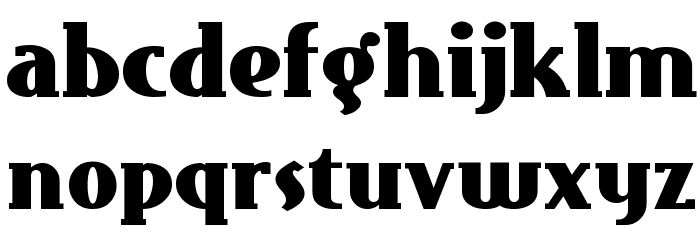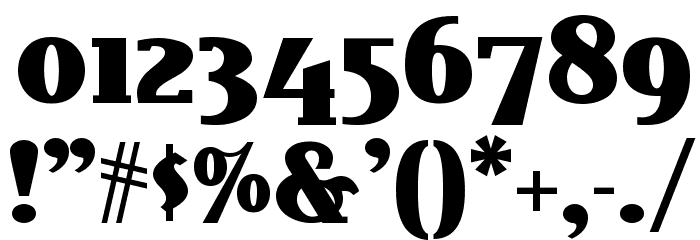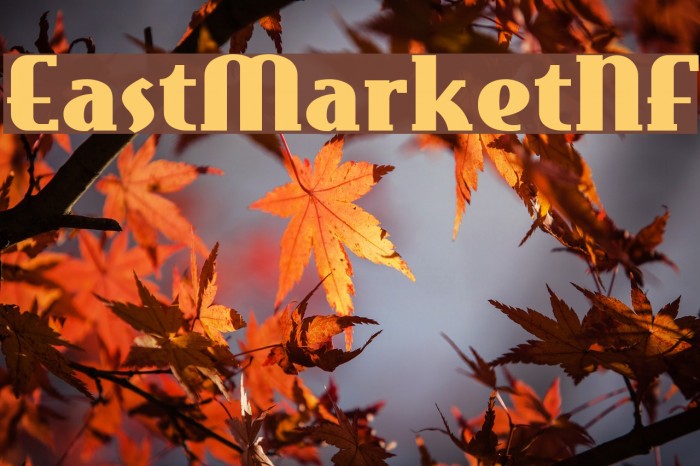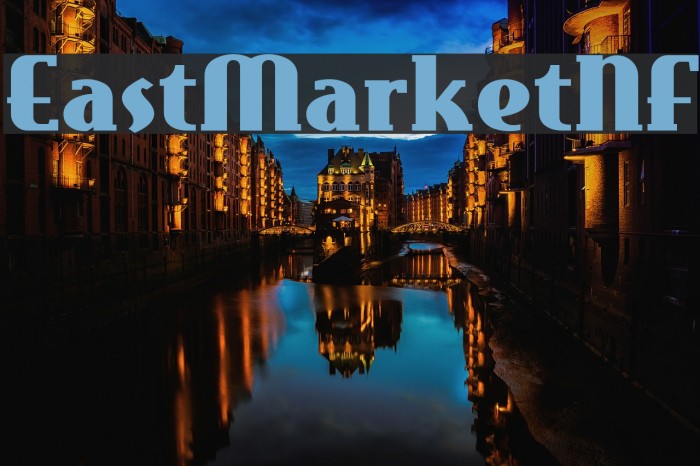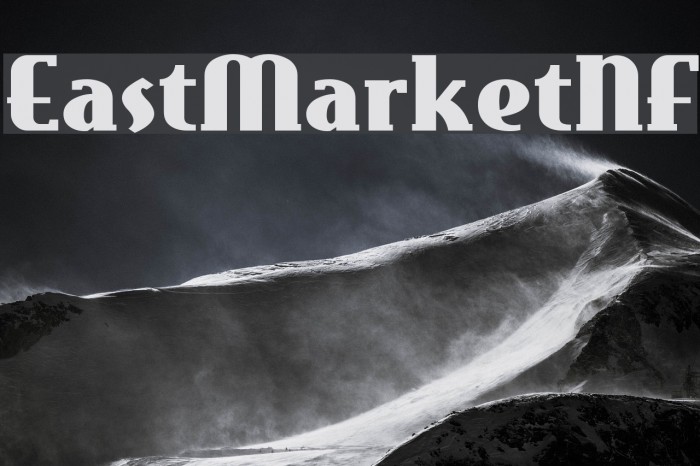
EastMarketNF Font
This font features a bold and striking design, characterized by its thick, block-like serifs and strong vertical lines. The uppercase letters exhibit a commanding presence with their uniform height and width, while the lowercase letters maintain a consistent style that complements the uppercase. The numerals are equally bold, ensuring readability and impact. Special characters are designed with the same robust style, making them stand out. The overall aesthetic is reminiscent of vintage poster fonts, offering a sense of nostalgia and authority.
A bold, vintage-inspired serif font with strong vertical lines and block-like serifs.
- Proposed Projects: Ideal for vintage posters, branding, headlines, and any project requiring a bold, authoritative typeface.
- Category: Serif
- Overall Style: Vintage